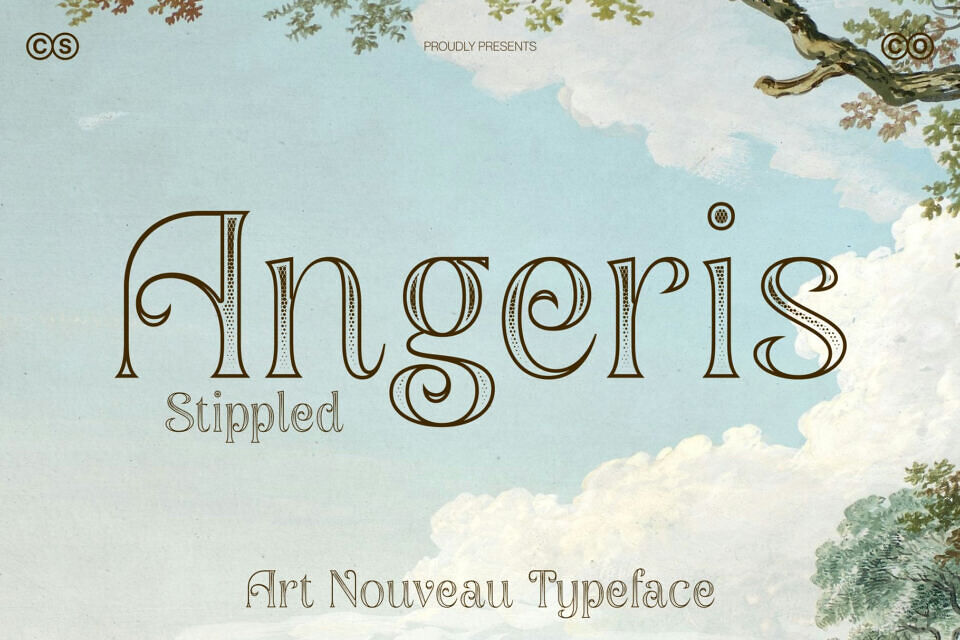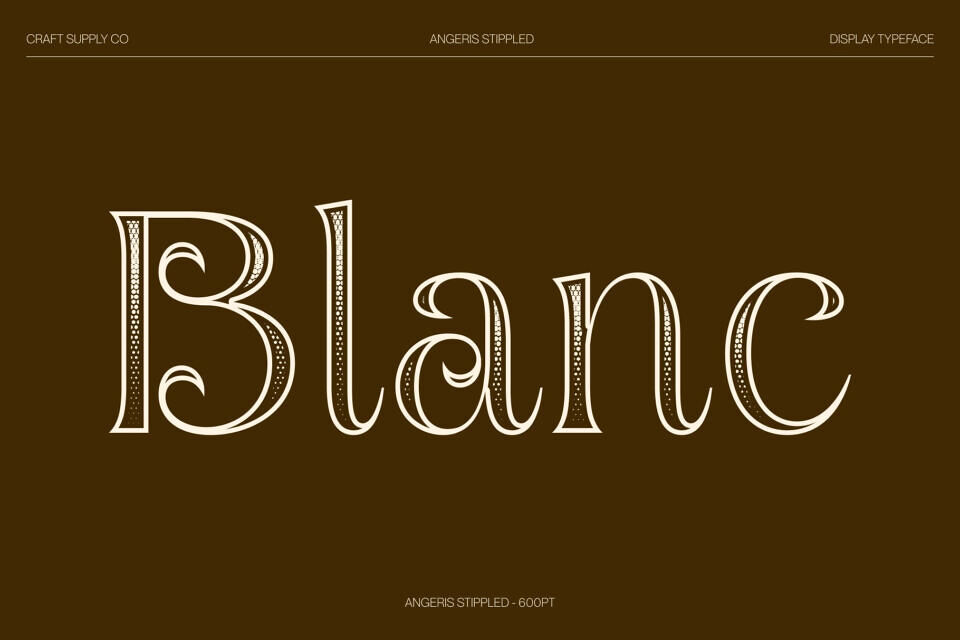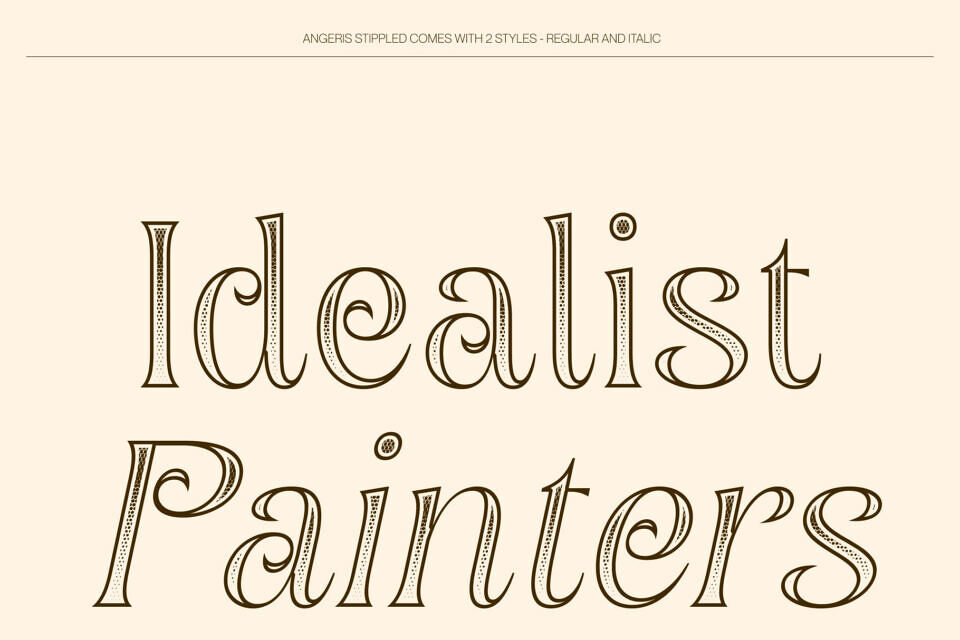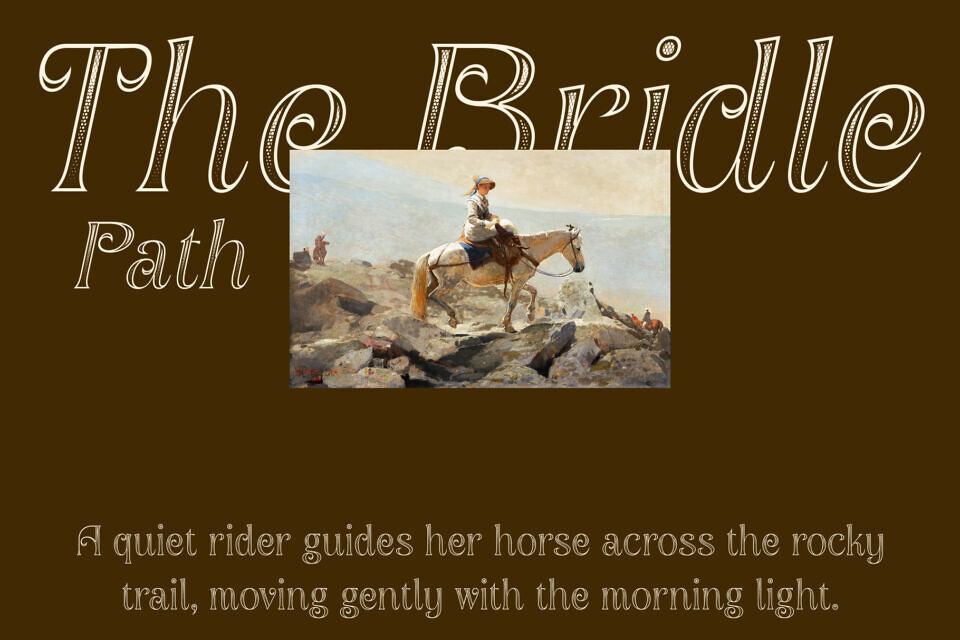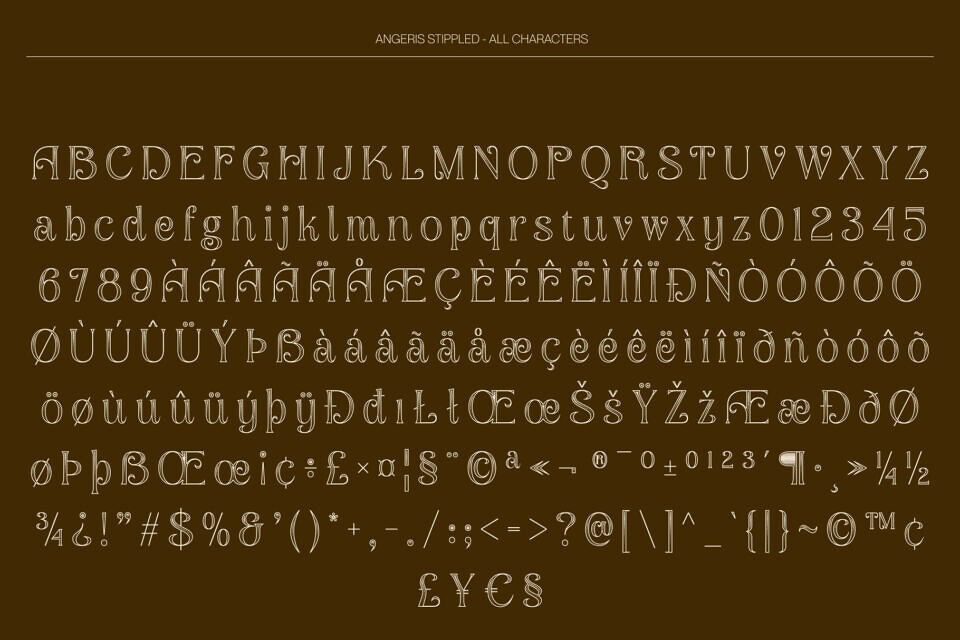
Angeris font draws inspiration from the iconic Art Nouveau movement, infused with a retro charm that evokes timeless nostalgia. Enhanced with a dense stippled texture reminiscent of classic ink-dot and stippling illustration techniques, the font gains a handcrafted, artistic quality that deepens its vintage character while maintaining a refined modern presence.
Each character reflects the flowing curves and ornate flourishes characteristic of Art Nouveau typography. The stippled surface accentuates these decorative elements, softening transitions and adding richness to the forms.